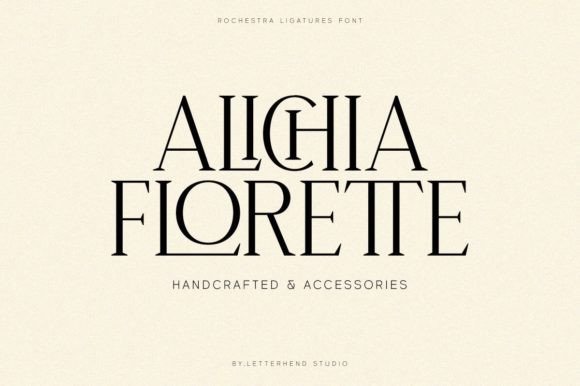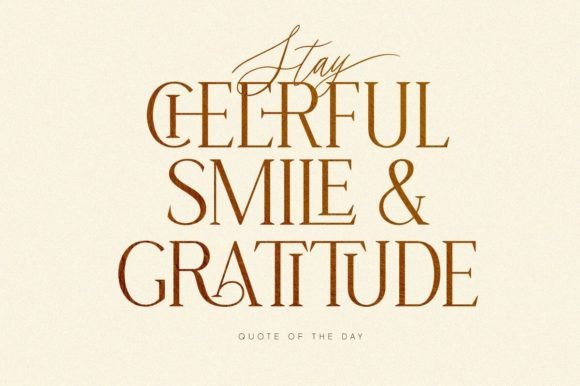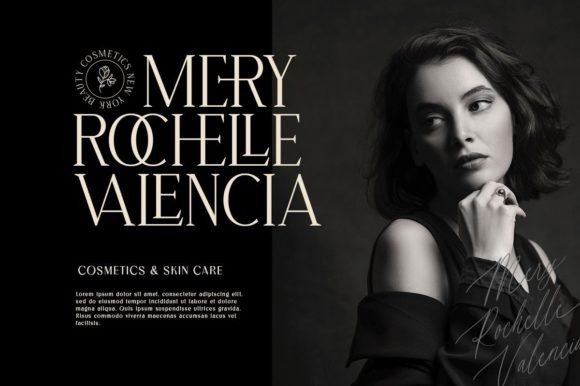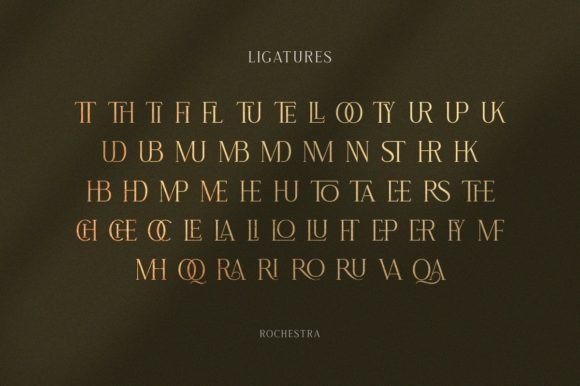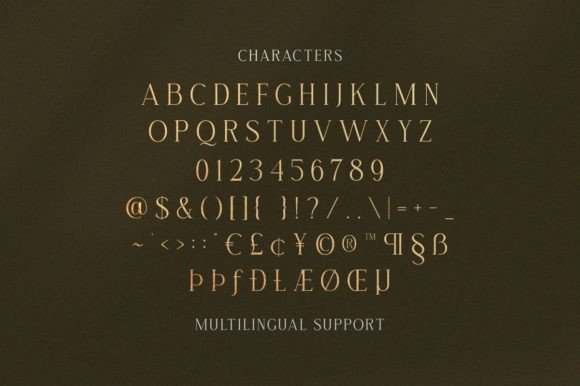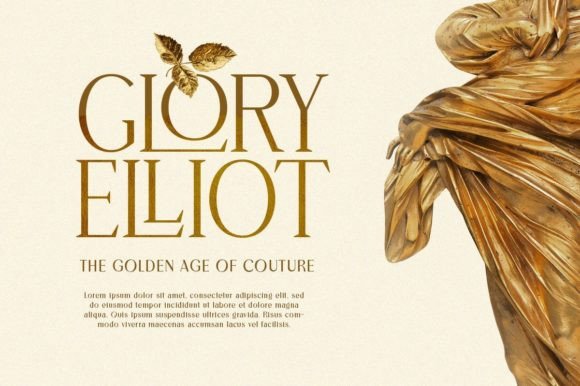
Introduction to Rochestra Font
Imagine you’re working on a high-end fashion magazine, and you need the perfect font to match the elegance of the designer’s creations. You browse through your design resources, searching for the perfect combination of sophistication and style. Suddenly, you stumble upon the Rochestra Font – a game-changing serif typeface that sets your creative project apart from the rest.
With its unique ligature characters and high-quality design, the Rochestra Font is a valuable asset for designers looking to elevate their work. Whether you’re creating invitations, labels, logos, or magazines, this versatile font is sure to impress. And the best part? It’s available for free download, making it an accessible design resource for creatives of all levels.
What makes the Rochestra Font truly special is its transparent background, allowing it to seamlessly blend with any design element. This feature makes it perfect for a wide range of applications, from packaging and fashion to stationery and novels. In this article, we’ll delve deeper into the world of the Rochestra Font and explore its many uses and benefits.
Key Features of Rochestra Font
- Transparent background option, allowing for seamless integration into various design elements.
- Supports a wide range of resolutions and sizes, from small text to large headings.
- Unique characteristics, such as its modern and elegant design, make it an excellent choice for designers seeking a distinctive look.
- Perfect for use in logos, branding materials, and other design elements where a high-quality font is required.
Honest Review: Rochestra Font
As a designer, I’m always on the lookout for high-quality design resources that can elevate my creative projects. Recently, I came across the Rochestera Font, and I was impressed by its unique aesthetic.
What works well: ✨ The font has a modern and sleek design that’s perfect for creating visually appealing headers and titles. It’s also highly legible, making it suitable for both digital and print projects. Additionally, the font is available for free download, which is a huge plus for designers on a budget.
The Rochestra Font also features a transparent background, making it easy to use with any design element. It’s a versatile font that can be used in a variety of creative projects, from branding to editorial design.
However, there are a few limitations: ⚠️ The font only comes in a few weights, which might limit its use in certain design scenarios. Additionally, the font doesn’t have a lot of language support, which might be a concern for designers working with non-English languages.
Overall, I’d recommend the Rochestra Font as a great addition to any designer’s toolkit. Its unique design and high quality make it a valuable resource for creative projects.
- Modern and sleek design
- Highly legible
- Only a few weights available
- Limited language support
Rochestra Font
Rochestra Font is a high-quality design resource ideal for creative projects requiring a unique touch. This font is available for free download and features a transparent background, making it perfect for overlaying on images or graphics.
Tips for Getting the Most Out of Rochestra Font
To maximize the impact of Rochestra Font, consider the following tips:
1. Use Rochestra Font in conjunction with high-contrast colors to create visual interest.
2. Experiment with different font sizes and styles to create a unique visual hierarchy.
Rochestra Font is ideal for:
1. Creative project headers and titles.
2. Overlay text on images or graphics.
3. Designing eye-catching social media graphics.